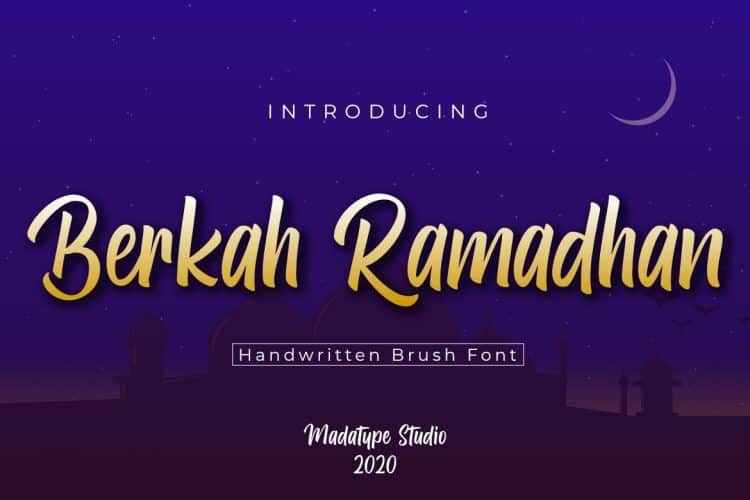
Berkah Ramadhan Font
Berkah Ramadhan Script Font is a unique textured brush font in that this brush font was created digitally. The inspiration for this font comes from handwritten vintage sidewalk signage.
Berkah Ramadhan is perfect for logo, apparel design, t-shirt, craft, decoration and much more.